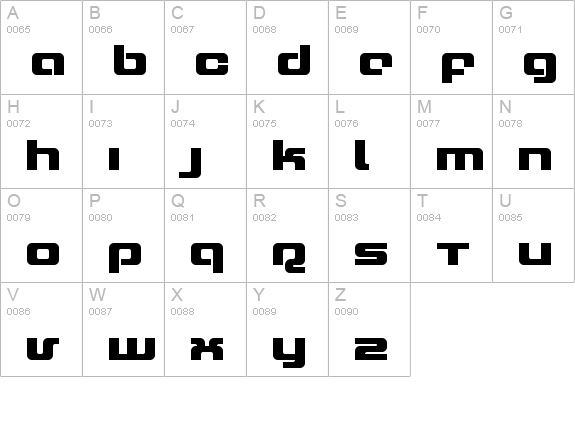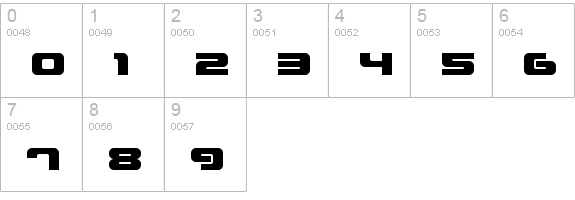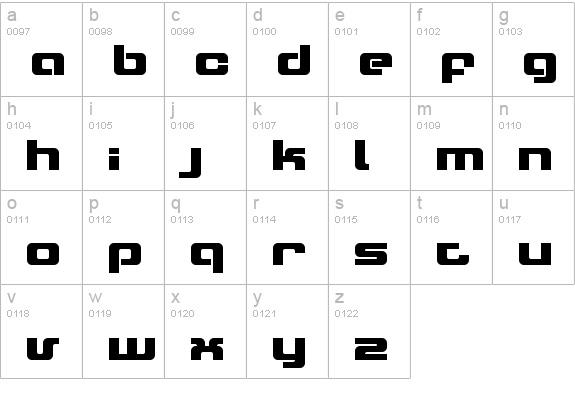
Xeron Font Details
Introducing Xeron font, a sleek and modern typeface that exudes sophistication and elegance. With its clean lines and contemporary style, Xeron is perfect for a wide range of design projects, from branding to editorial layouts. What sets Xeron apart is not only its timeless design, but also the fact that it is completely free to download. Yes, you read that right – Xeron is available for free at FontsMarket.com. This means you can elevate your creations with this stunning font without breaking the bank. Whether you're working on a website, a poster, a logo, or any other project that requires a touch of elegance, Xeron is the perfect choice. Download it today and see for yourself how this font can take your designs to the next level.